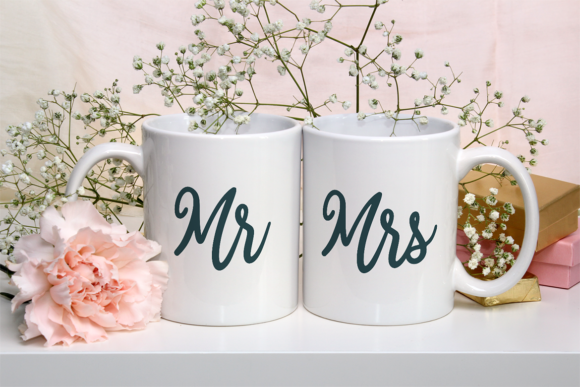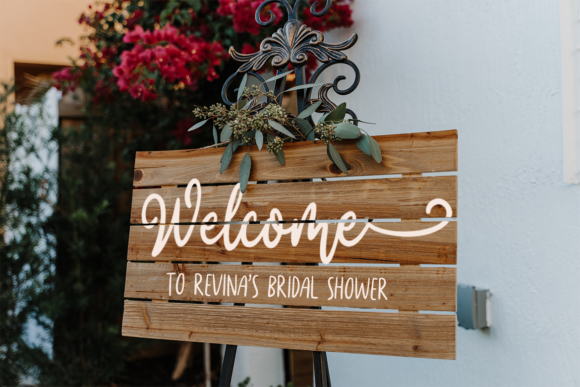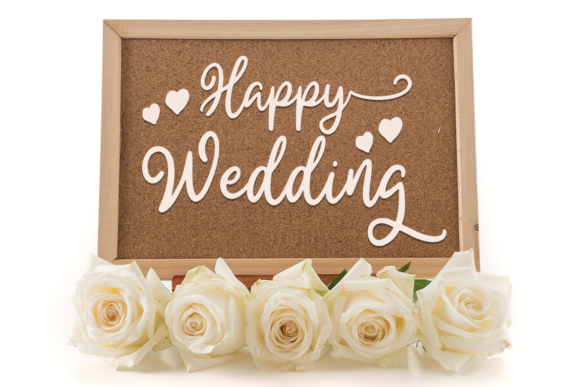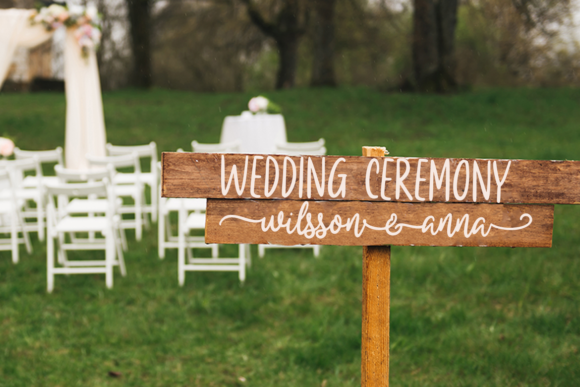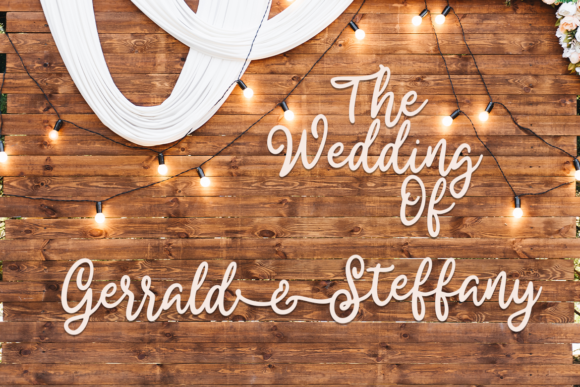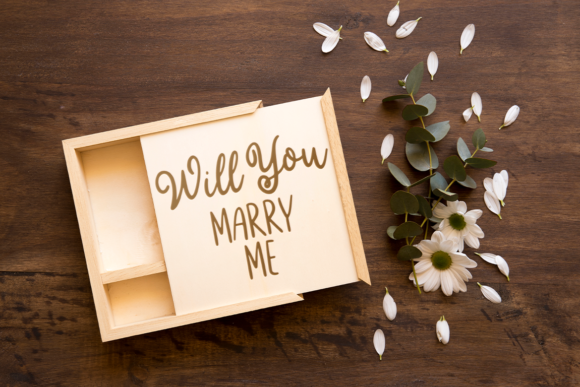
The Perfect Match: Elevating Designs with Bride and Groom Font
As I sat at my desk, staring at a blank page, I was searching for the perfect font to bring my latest design to life. It was as if I was on a mission to find the ideal partner for my project – someone who would complement its every aspect and make it shine. And then, I stumbled upon the Bride and Groom Font – a lovely duo of sans serif and script fonts that seemed to be made for each other.
The Bride and Groom Font is a versatile and elegant font that can elevate any design to new heights. Its PUA encoding allows designers to access all the glyphs and swashes with ease, giving them the freedom to create unique and captivating designs. Whether you’re a seasoned designer or a newcomer to the world of typography, this font is a valuable asset that will help you take your projects to the next level.
Bride and Groom Font Key Features
- Font Style: Script, Cursive, Wedding Font
- Unique Characteristics: Elegant, flowing script design, perfect for wedding invitations, announcements, and other special occasions
Bride and Groom Font Review
Overall, I think the Bride and Groom Font is a cute and playful choice for wedding invitations or other romantic occasions. Here are some things that work well: ✨
- It’s easy to read, even at small font sizes.
- The script font is lovely for creating a sense of elegance and sophistication.
- The bold weight is great for highlighting important information, like the wedding date and location.
- The font may not be suitable for formal or traditional wedding invitations, as it’s a bit too playful.
- The script font can be difficult to customize, making it tricky to change the font size or color.
- The font doesn’t come with a lot of additional characters or symbols, which can be a limitation for more complex designs.
Overall, I think the Bride and Groom Font is a great choice for a fun and casual wedding, but it may not be the best fit for a more formal or traditional celebration.
The Bride and Groom font is commonly used for:
- Wedding invitations and announcements.
- Wedding websites and social media graphics.
- Wedding stationery and signage.